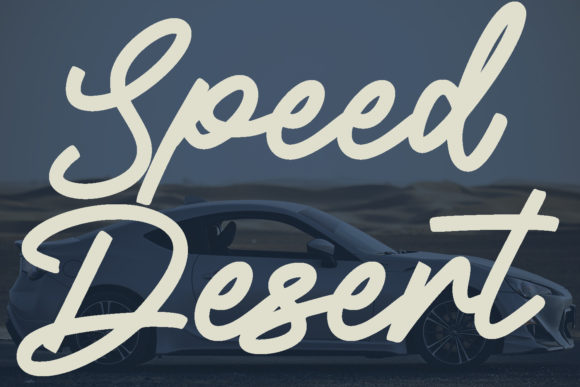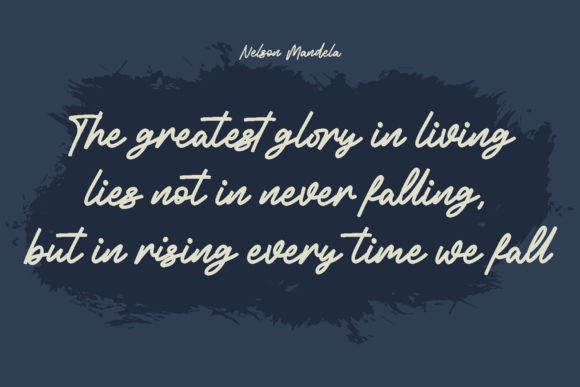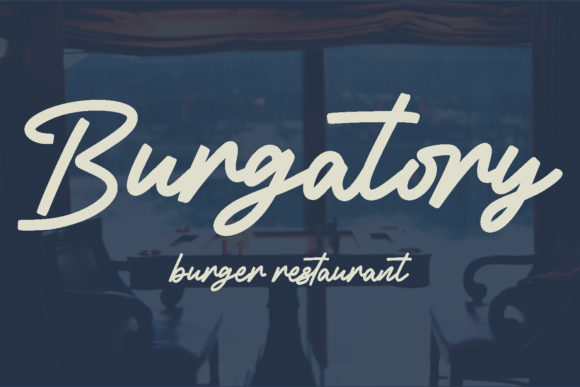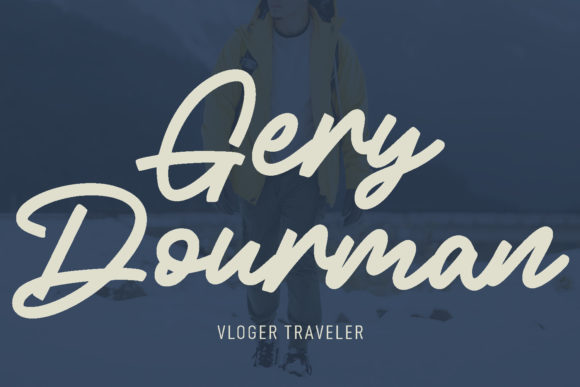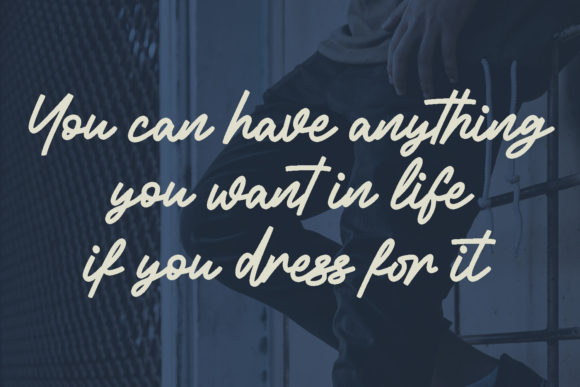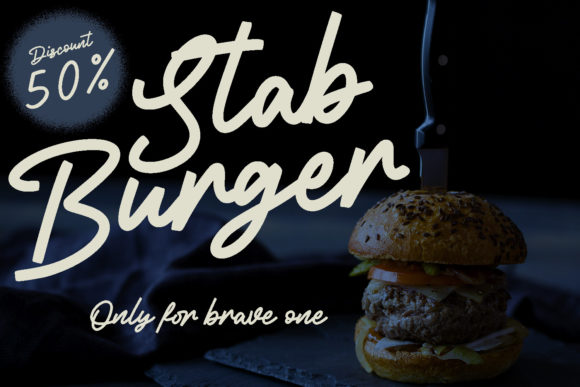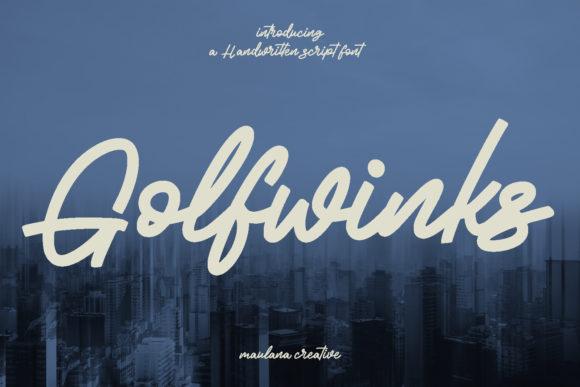
Golfwinks Font: Elevate Your Designs with Elegance and Class
In the world of typography, fonts play a crucial role in conveying the tone and aesthetic of a design project. For designers and crafters seeking to add a touch of elegance and sophistication to their work, Golfwinks Font is an excellent choice. This well-balanced and vintage handwritten font is crafted with great care, ensuring maximum results in any design project.
The Characteristics of Golfwinks Font
Golfwinks Font boasts a unique blend of classic and modern elements, making it an versatile addition to any designer’s toolkit. Its vintage handwritten style evokes a sense of nostalgia and timelessness, while its well-balanced structure ensures that it remains legible and easy to read. The font’s elegant lines and curves add a touch of sophistication, making it perfect for designs that require a high level of refinement.
Why Choose Golfwinks Font?
There are several reasons why Golfwinks Font stands out from the crowd:
- Elegance and Class: Golfwinks Font adds a level of sophistication to any design project, making it perfect for high-end branding, packaging, and marketing materials.
- Vintage Charm: The font’s vintage handwritten style gives it a unique and distinctive look that sets it apart from more modern fonts.
- Legibility: Despite its elegant lines and curves, Golfwinks Font remains highly legible, making it suitable for use in a variety of design applications.
- Versatility: Golfwinks Font can be used in a range of design projects, from print materials like brochures and business cards to digital applications like websites and social media graphics.
Using Golfwinks Font in Design Projects
Golfwinks Font can be used in a variety of design projects, including:
- Branding and Identity: Use Golfwinks Font to create a sophisticated and elegant brand identity that sets your business apart from the competition.
- Packaging Design: Add a touch of elegance and refinement to your packaging designs with Golfwinks Font.
- Marketing Materials: Use Golfwinks Font in your marketing materials, such as brochures, flyers, and business cards, to create a lasting impression on your target audience.
- Digital Design: Golfwinks Font can also be used in digital design applications, such as website design, social media graphics, and email marketing campaigns.
Tips for Getting the Most Out of Golfwinks Font
To get the most out of Golfwinks Font, consider the following tips:
- Pair it with a Sans-Serif Font: Pairing Golfwinks Font with a sans-serif font can create a striking contrast that adds visual interest to your design.
- Experiment with Font Sizes: Experiment with different font sizes to create a hierarchy of information and add depth to your design.
- Use it in Combination with Images: Using Golfwinks Font in combination with images can add a level of sophistication and elegance to your design.
Golfwinks Font is a versatile and elegant font that can add a touch of sophistication and refinement to any design project. Its well-balanced structure, vintage charm, and high legibility make it perfect for a range of design applications. Whether you’re a designer or crafter looking to elevate your designs, Golfwinks Font is an excellent choice.